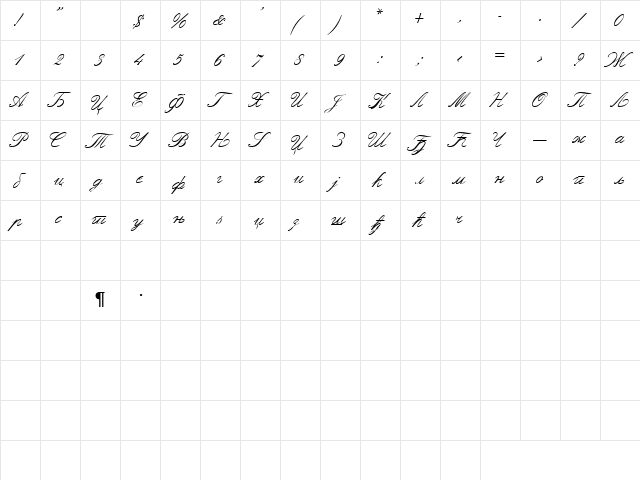
Caligraph Cirilica Regular
Design Context for Caligraph Cirilica Typeface
Caligraph Cirilica takes a measured approach to typography — its balanced proportions and neutral character make it a reliable workhorse for both digital and print work.